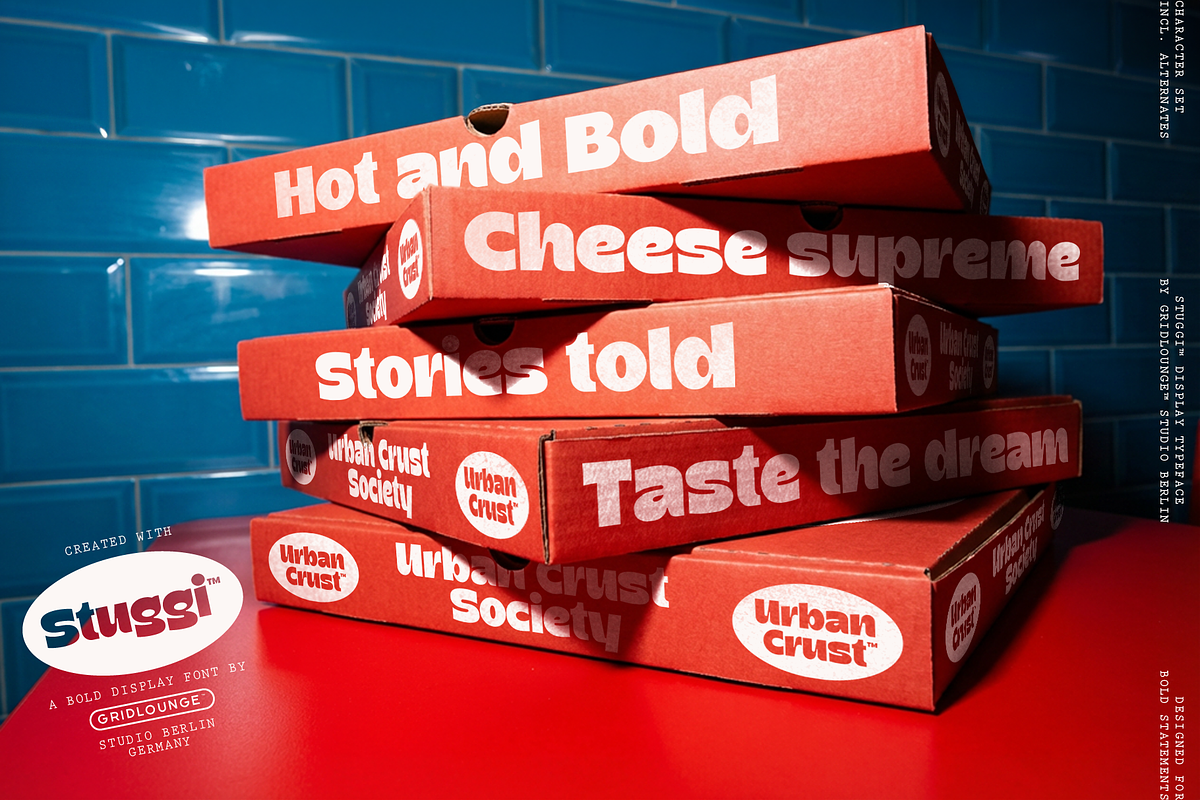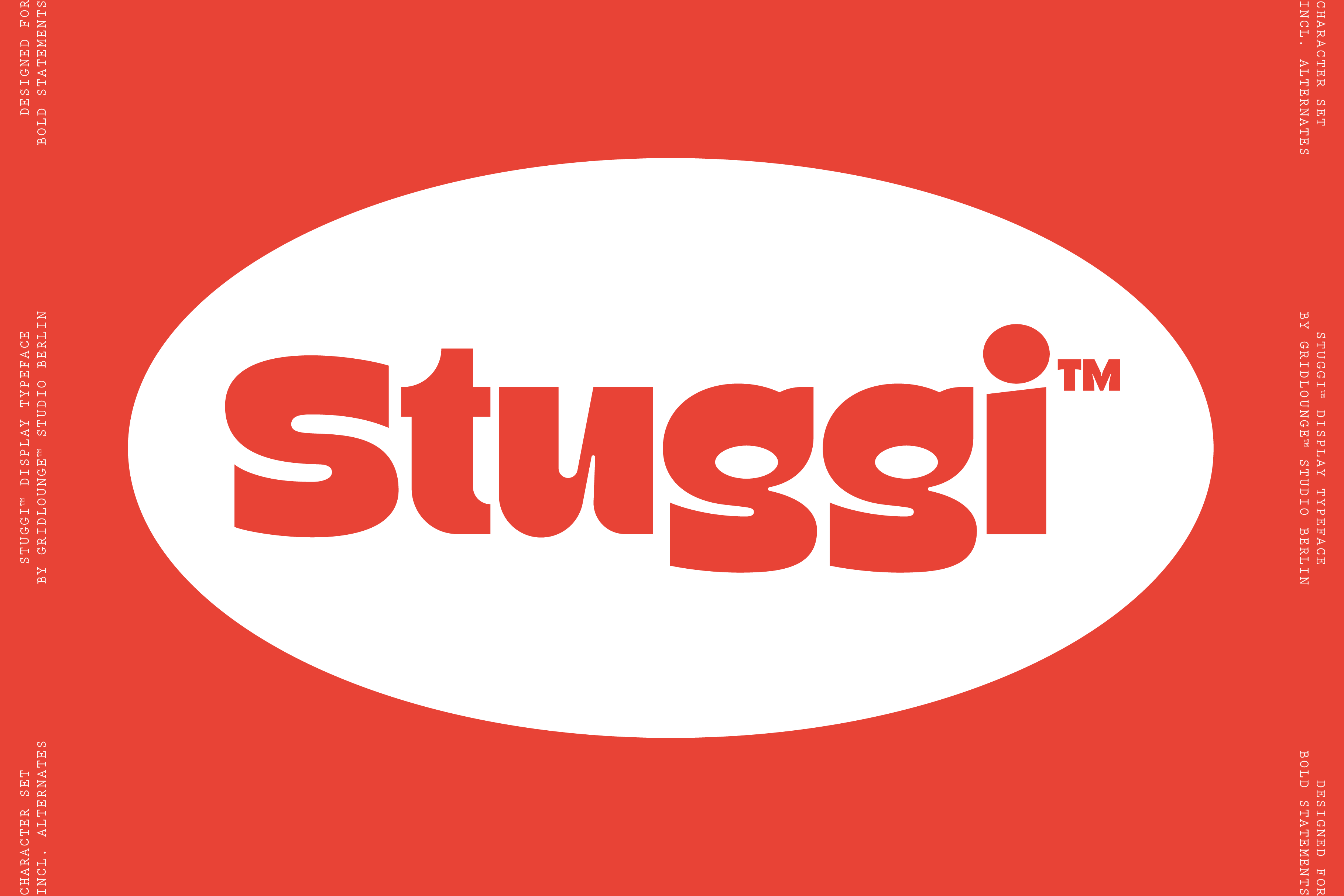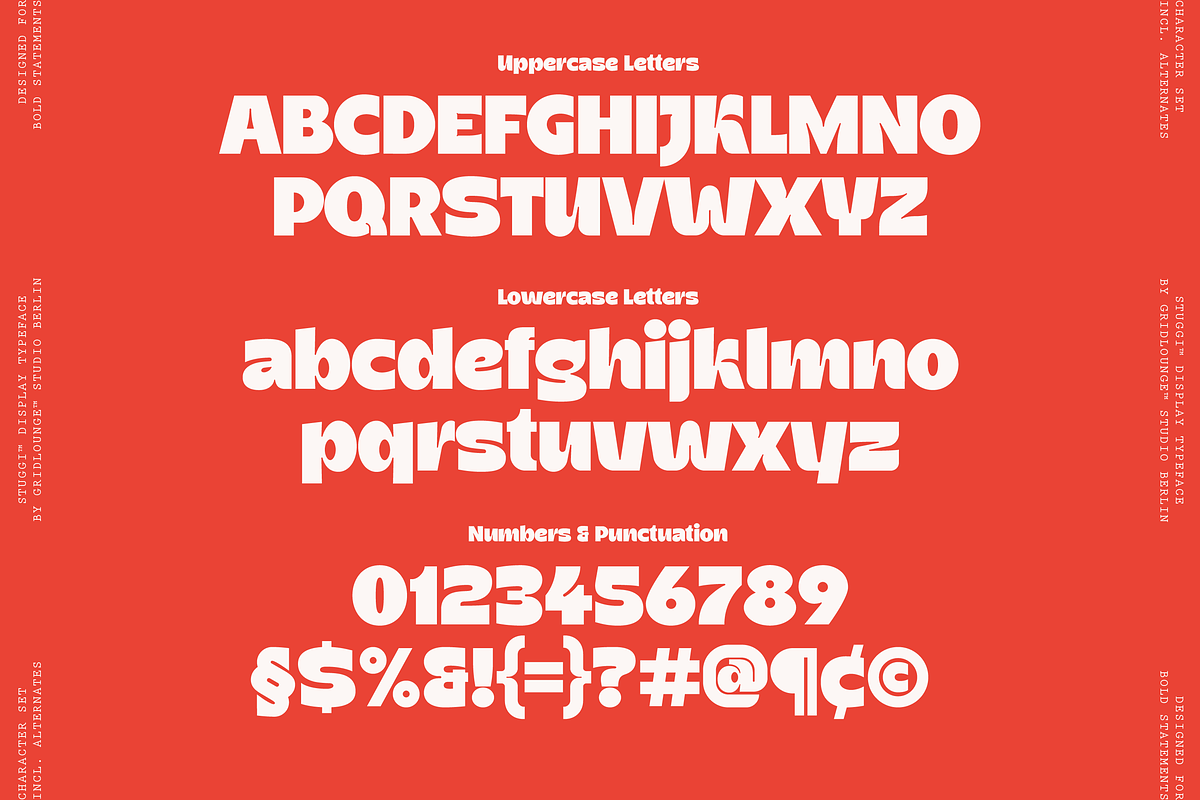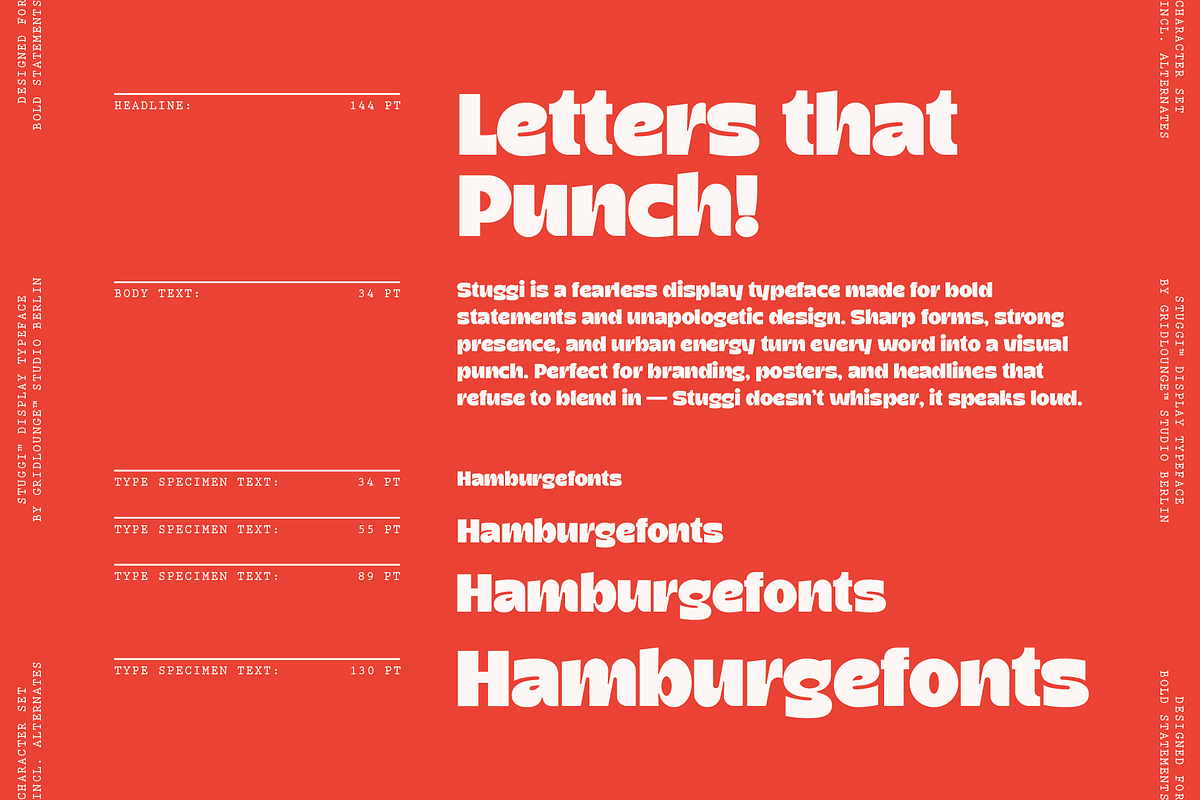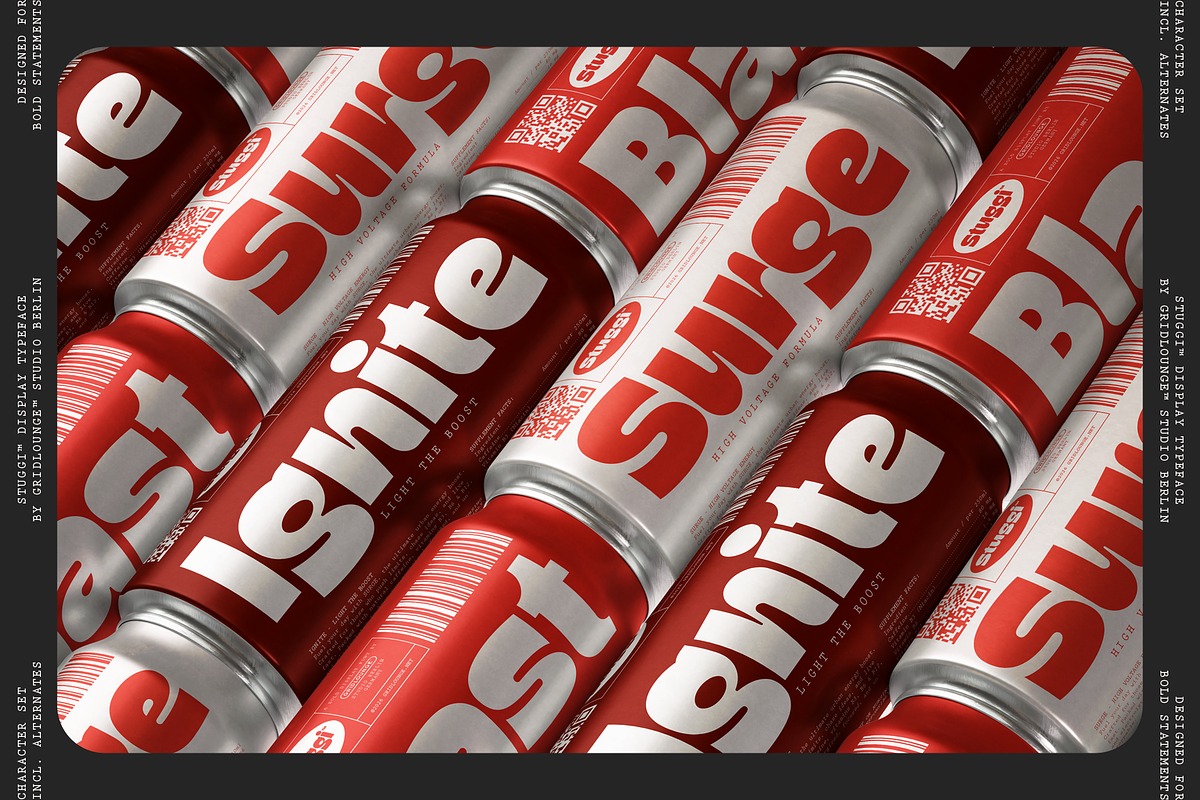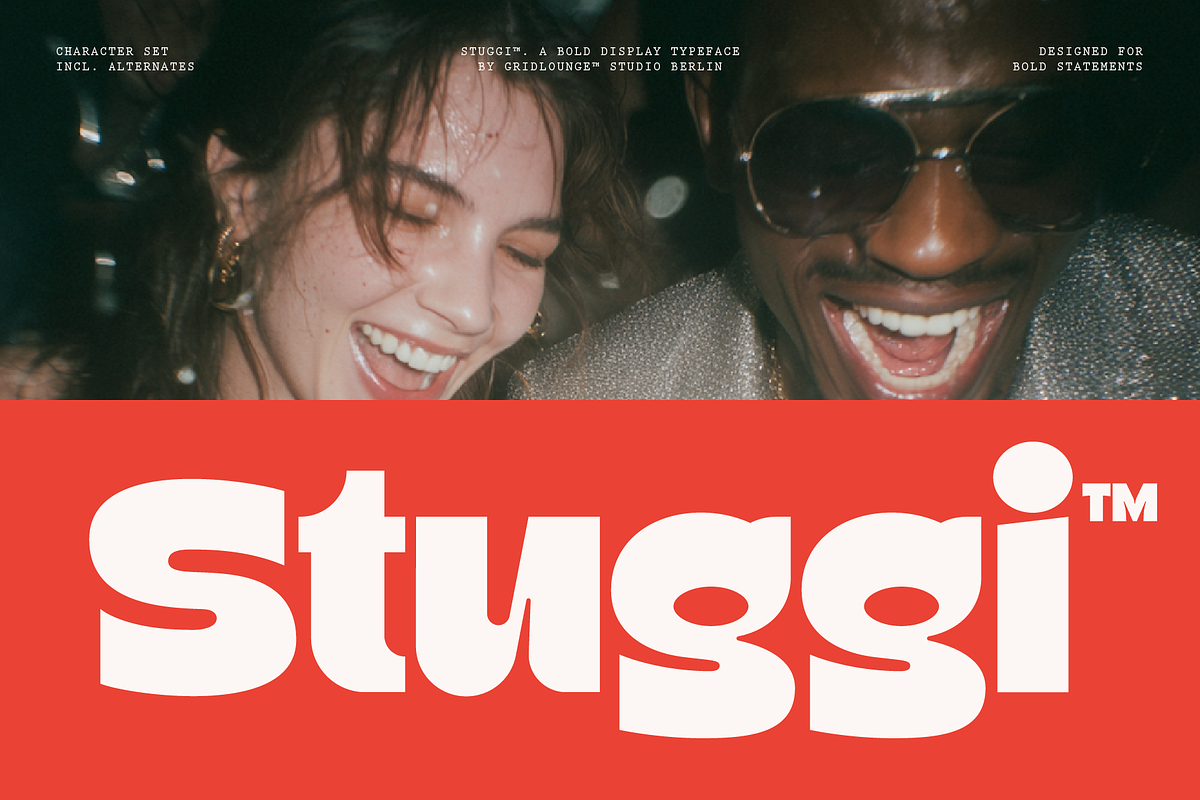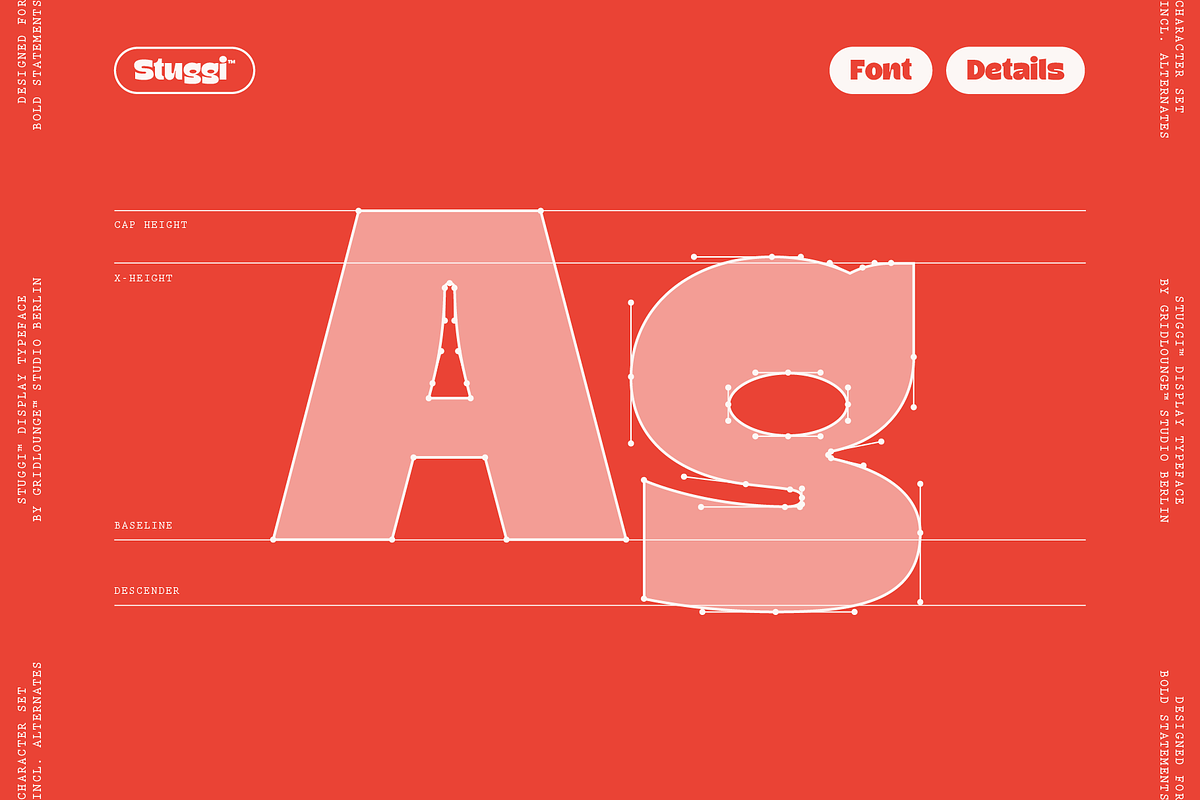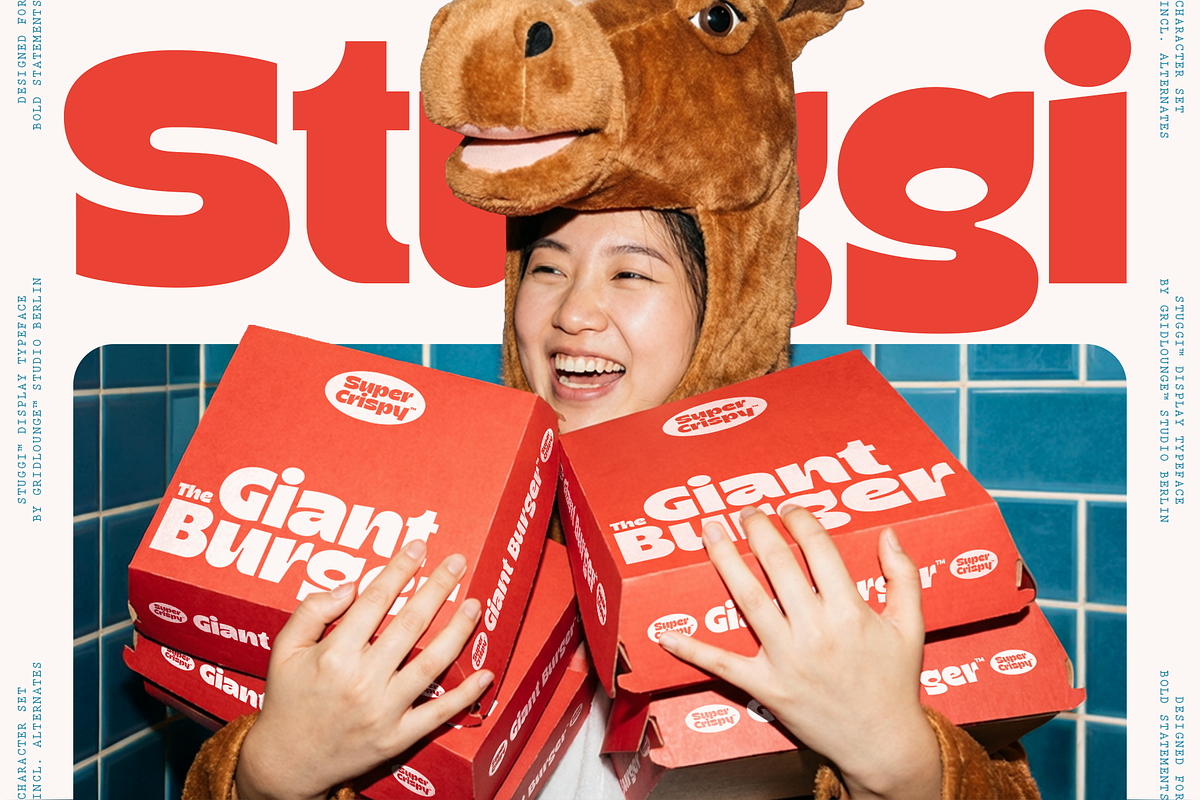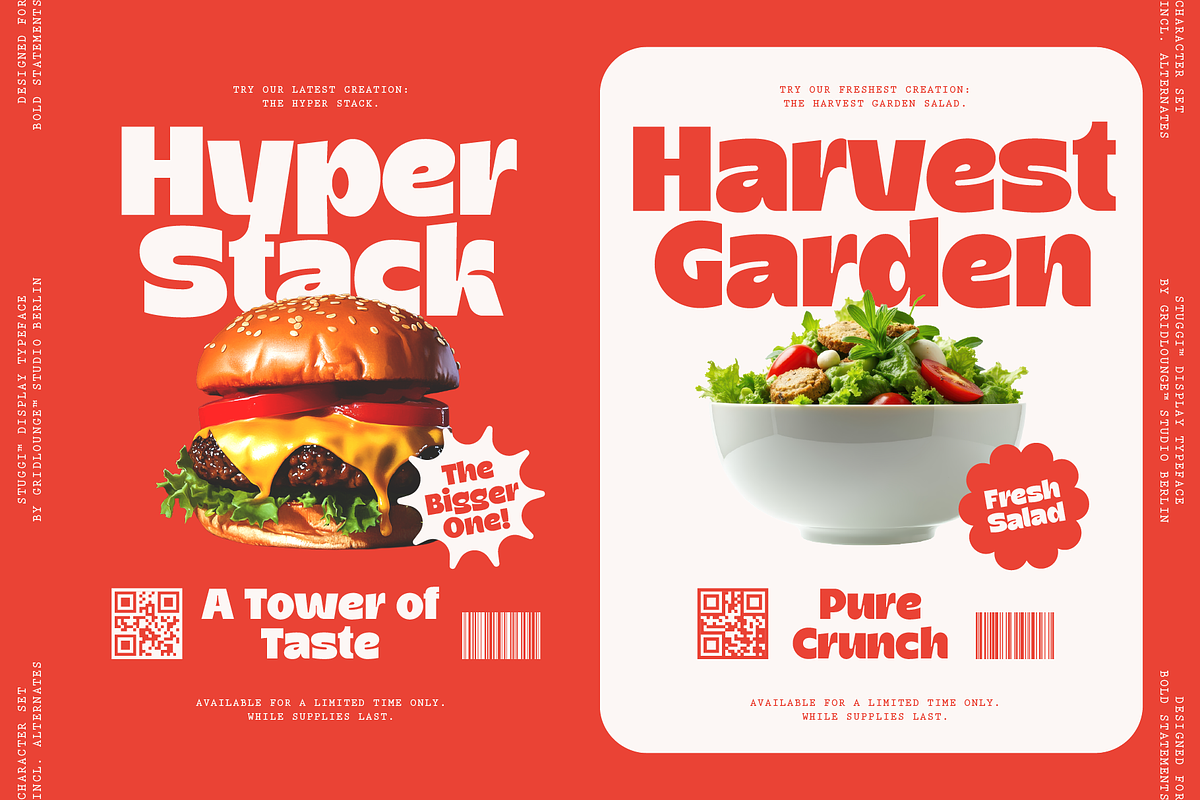
Stuggi – Modern Display Font
Meet Stuggi, the bold display font that grabs attention and refuses to be ignored! Perfect for posters, logos, packaging, and social media, Stuggi gives your words personality and punch.
Packed with latin letters, numbers, multilingual glyphs, and quirky alternative characters, this font is made for designers who want to stand out and play with typography.
Quick perks:
Bold, playful display font
Multilingual & alternative characters included
Perfect for posters, headlines, logos, social media graphics
Turn your text into a statement – Stuggi makes sure everyone notices!